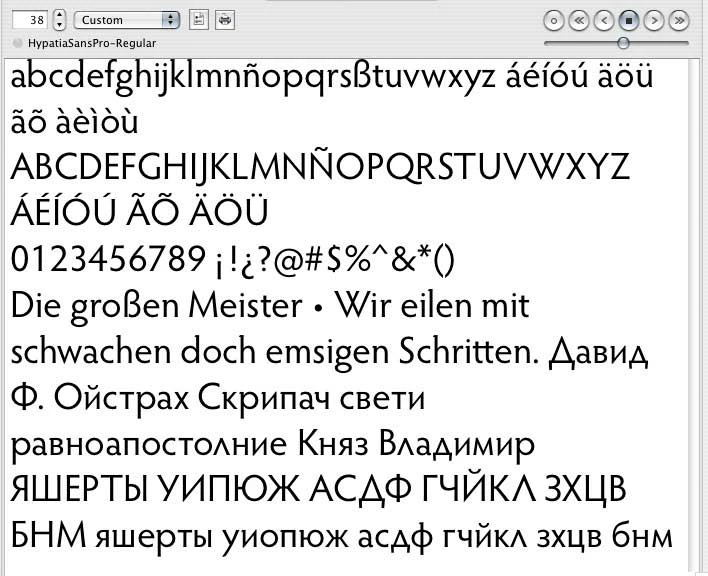
non-reduntant font
I am looking for some non-reduntant, sans serif, proportionally spaced fonts.  That is:
1)  Courier is non-reduntant (each letter and number is different), but it has serifs and is fixed width
2)  Arial is sans serif and proportionally spaced, but redundant.  For example using Arial for the word  "Illustrator"  upper case "i" and lower case "L" look the same.
A font like Arial would be fine if it had an upper case "i" that looked like "I".  It would be nice to have a font table listing the various attributes of the common fonts
Of course there's also Thomas Phinney's Hypatia Sans Pro;
Again, this hypatia font is a really attractive font.  At the risk of sounding hypercritical:
1)  The upper case "j" dips below the line
2)  The upper case "i" and lower case "L" still look the same
3)  The upper case "w" is non-standard.
So, it's a non-starter.
I'm looking for a clean (sans serif) font in which all letters are unique and quickly recognizable for technical writing.  At times, the font size may need to be small and sometimes non-native English speakers will be involved.
Don't worry about sounding hypercritical.  I also find Hypatia very nice, and it works very nicely in English, Spanish and Russian.  I can't use it to set German text, however, as I personally don't care for its German Es-Zet ß glyph.  (I don't like that glyph in Verdana either, so I've momentarily switched to Arial for this post.)
You don't mention what you need the font for, so I'll just mention the first one that pops into my head:  ITC Officina Sans (from Adobe).
This "ITC"  font might do the trick.  I need it for technical writing.  It is a nice and attractive font.  To my eye, I find that the upper case J looks like a backwards "C".  The upper case "i" is great.  The lower case "L" has a bit of a hook on it which is a bit non-standard.